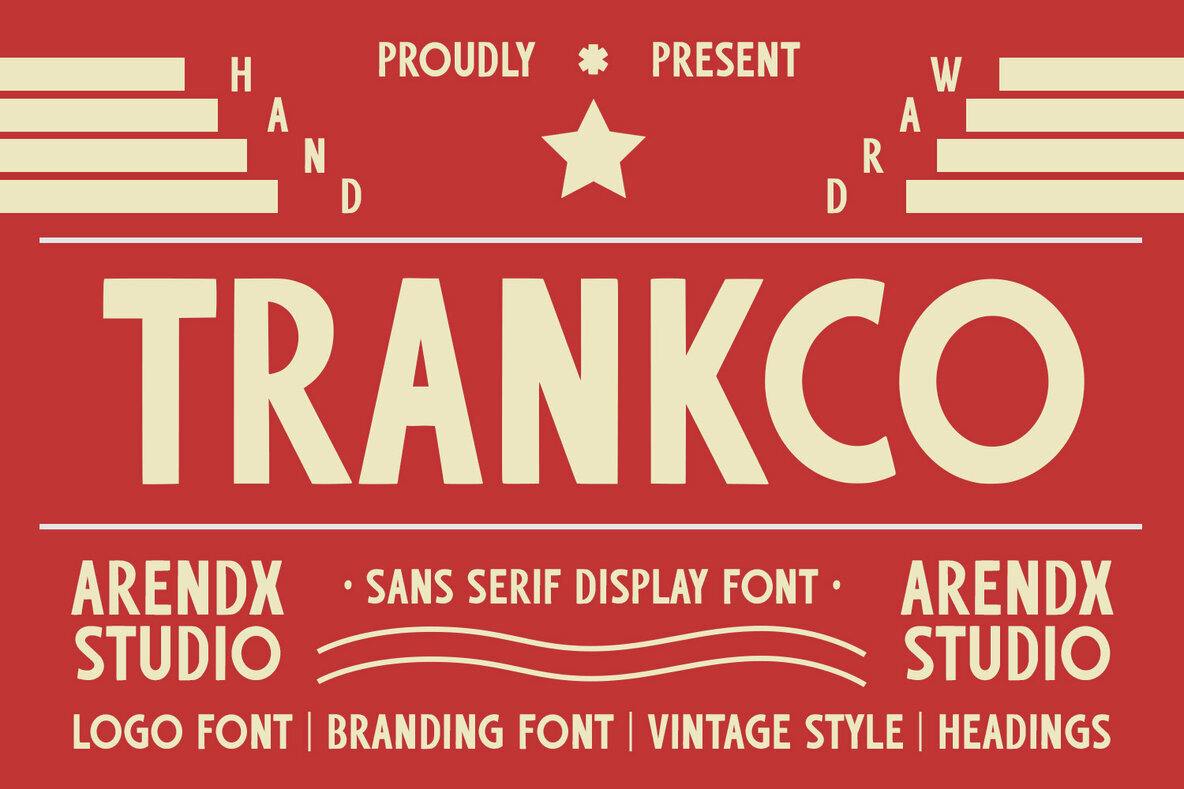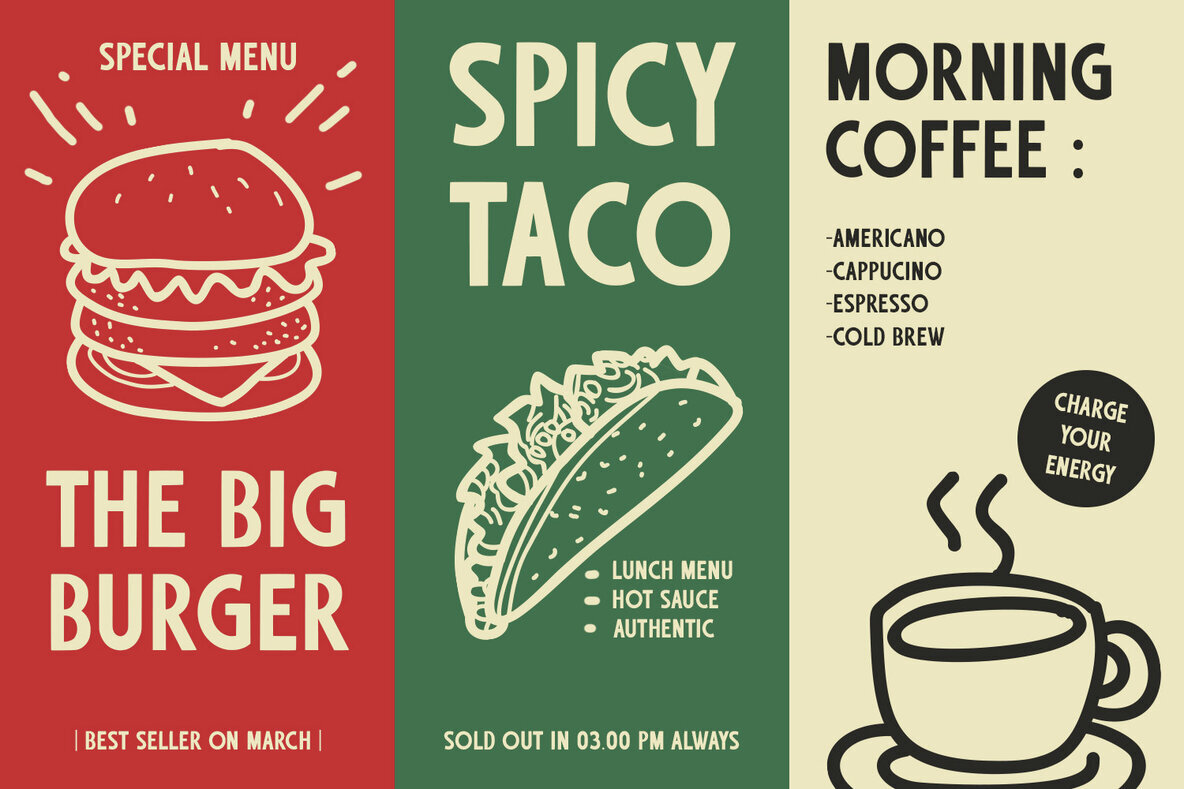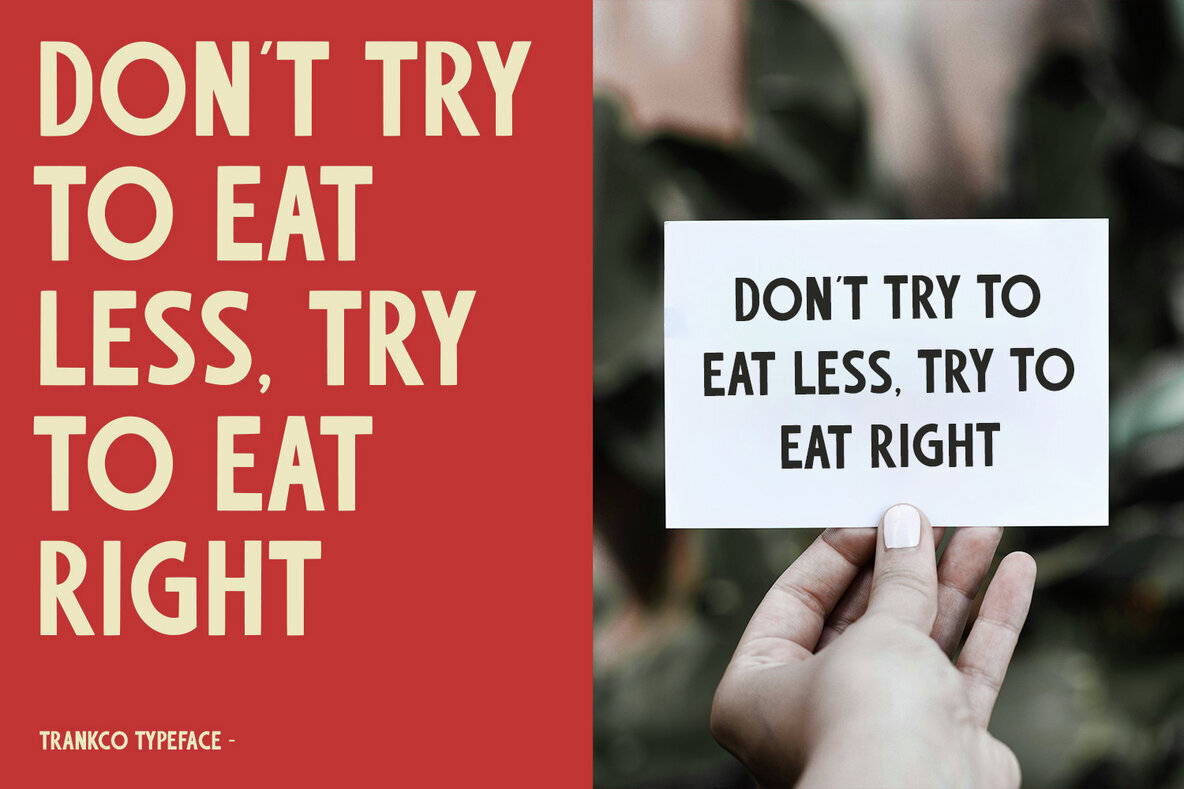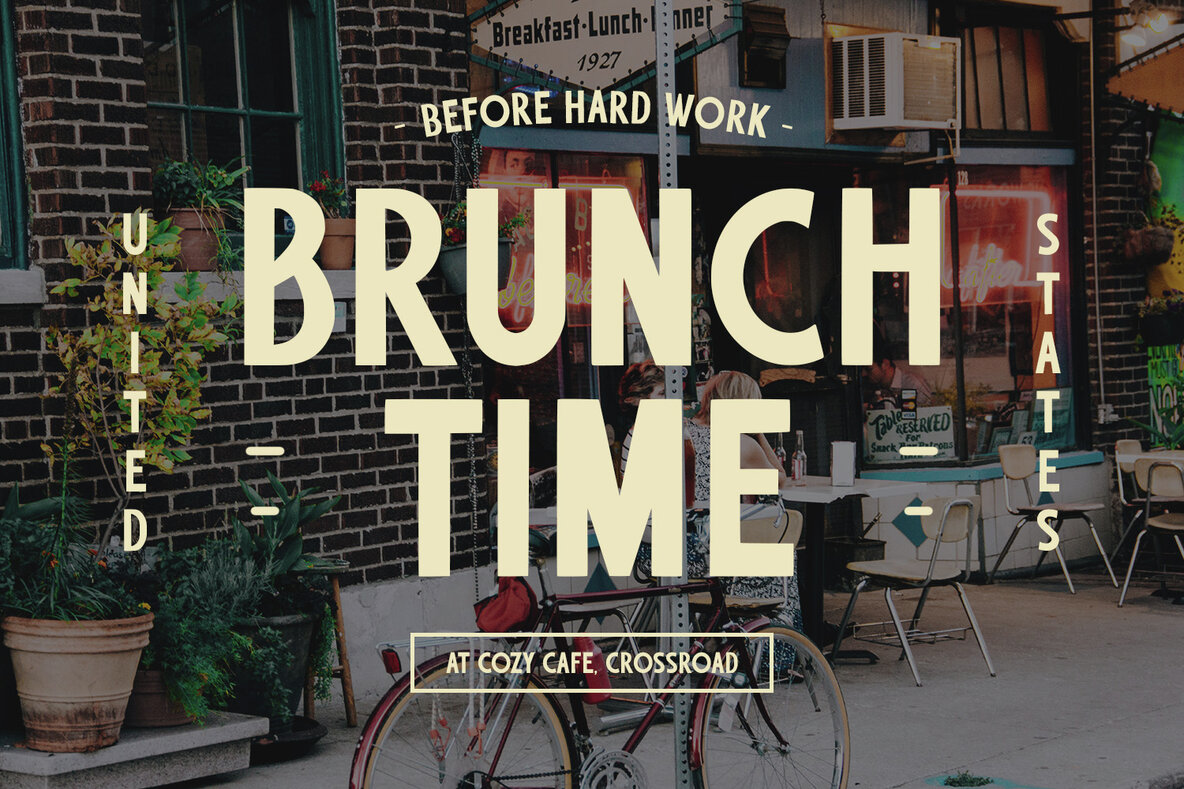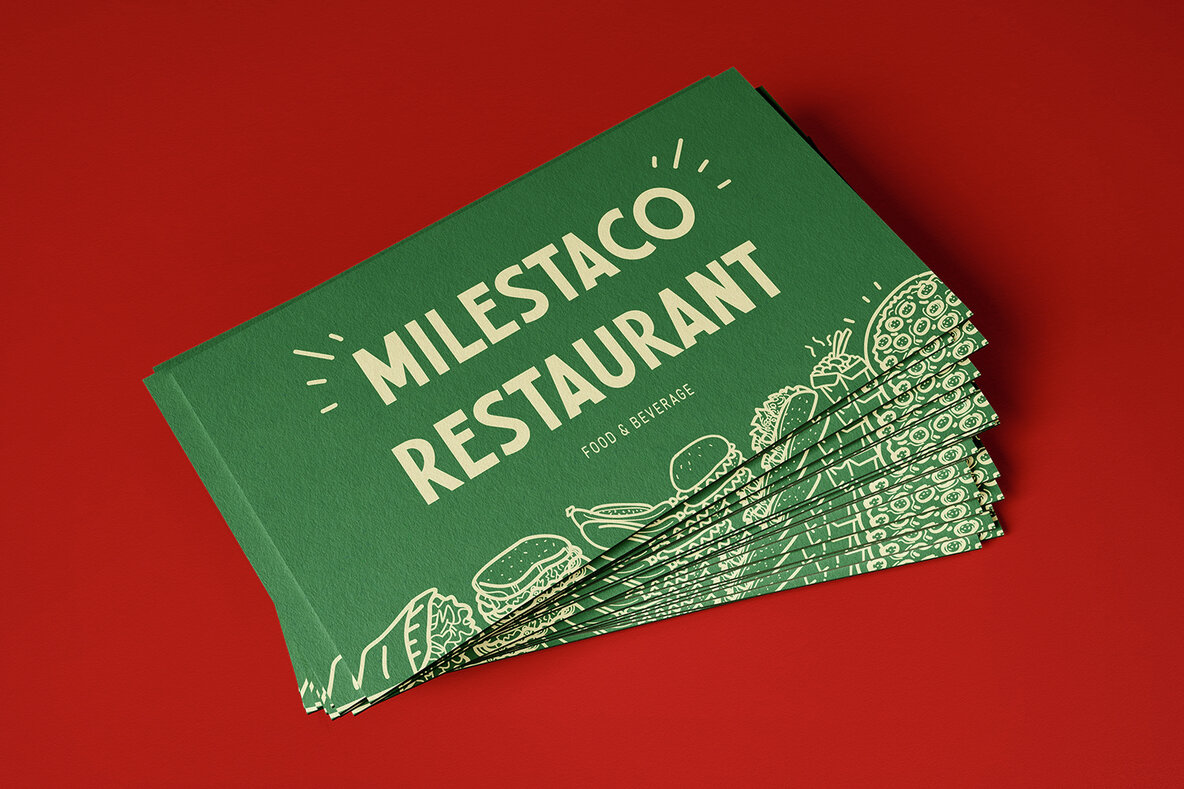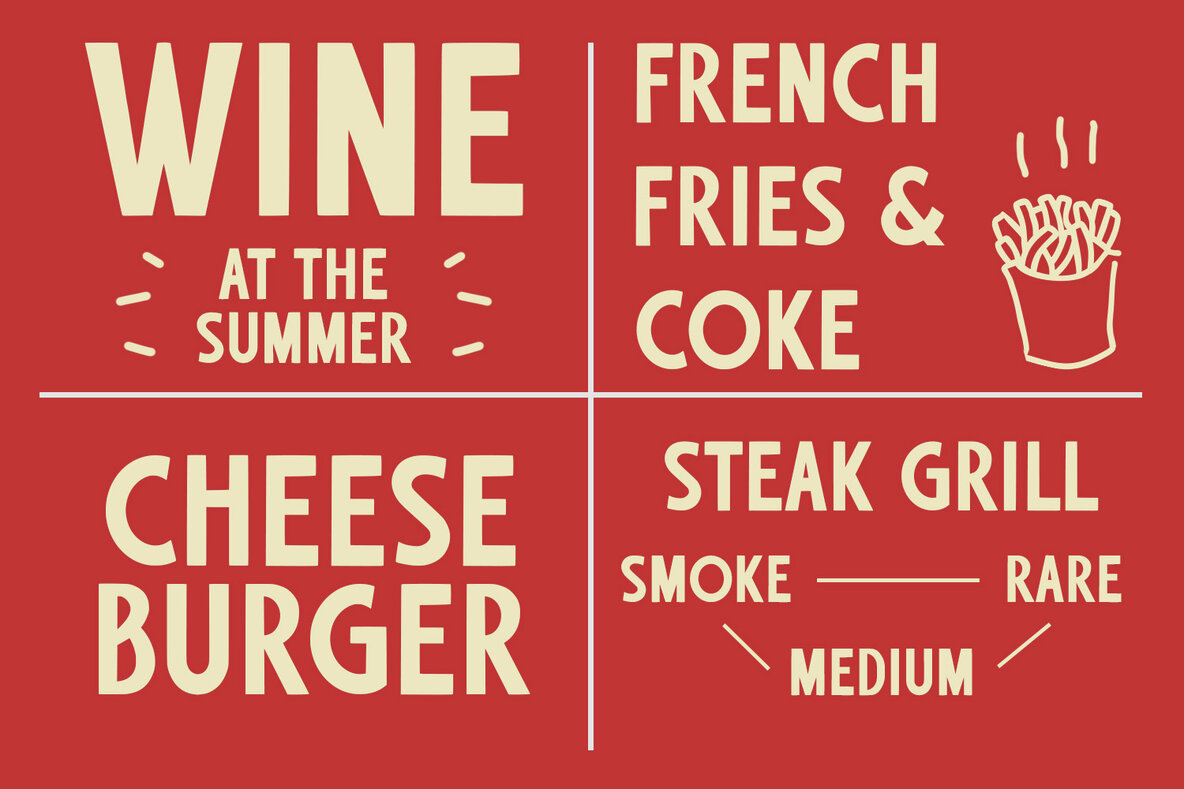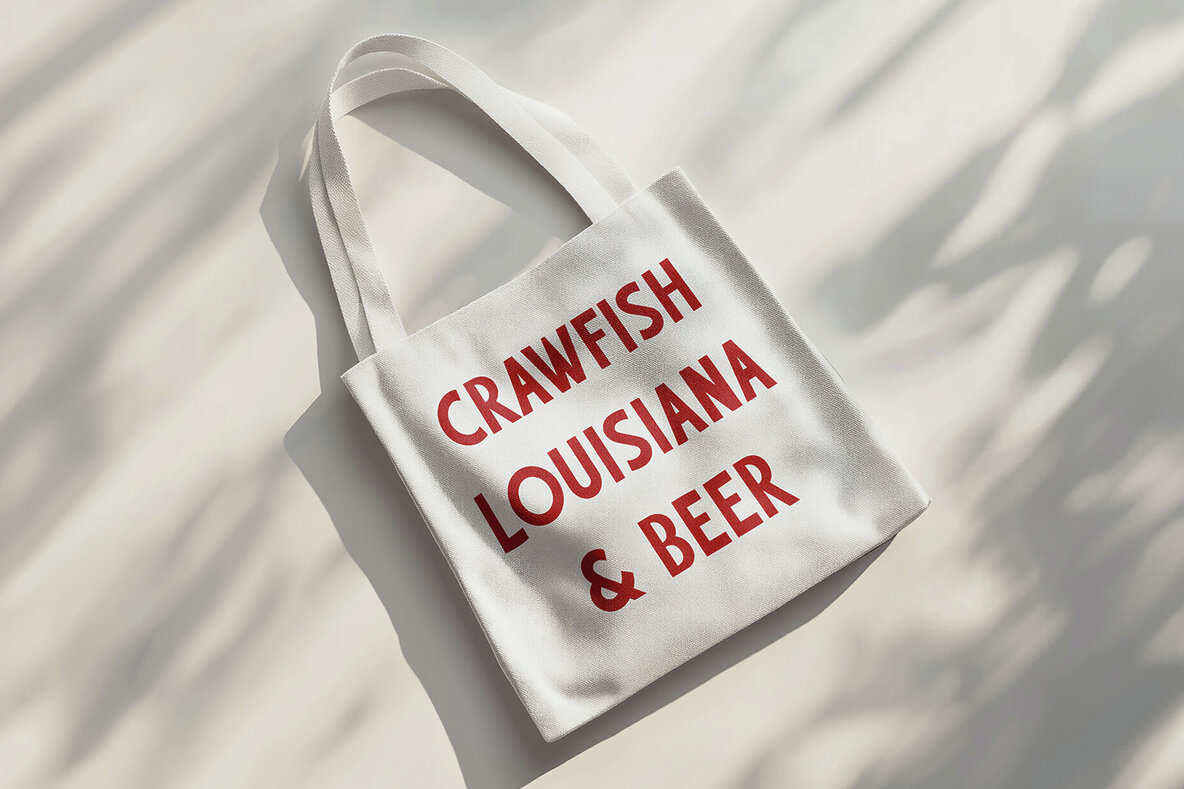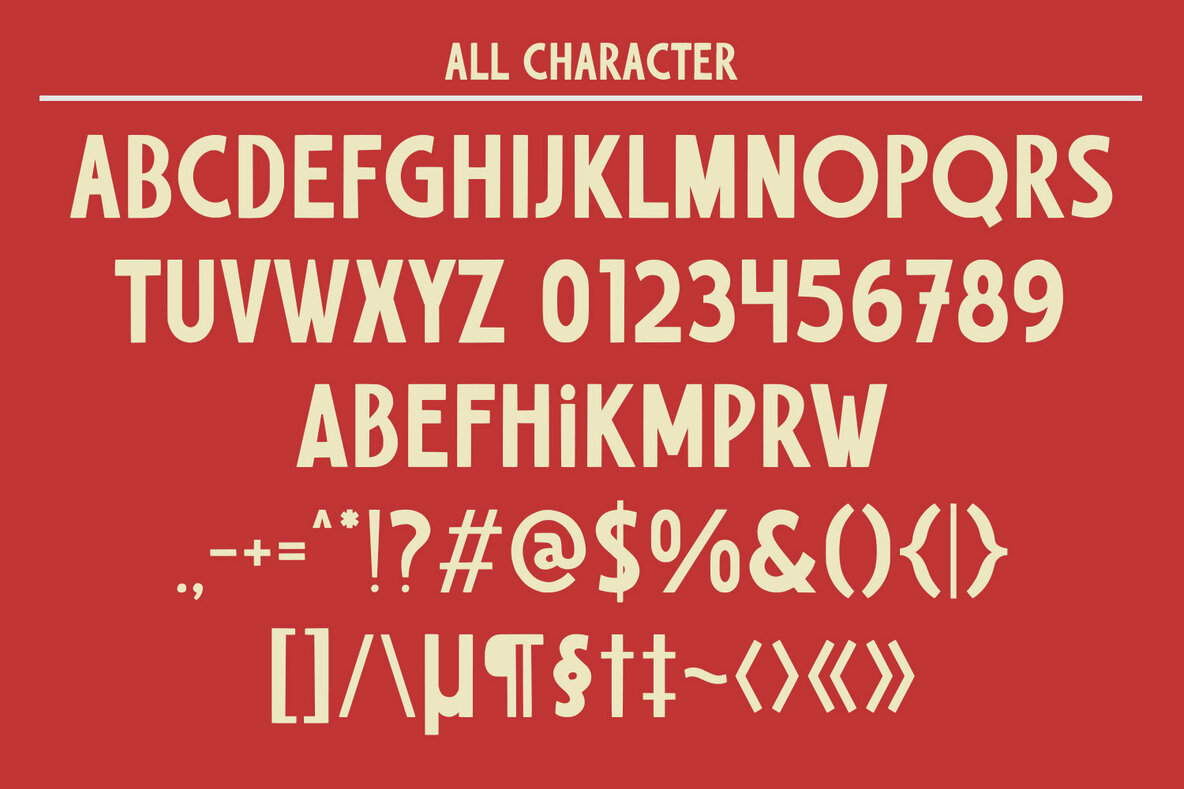
Trankco Font
Trankco
Trankco is a retro sans-serif hand-drawn font that channels the bold, no-nonsense typography of 1960s advertising and industrial signage, but with the gritty charm of a brush or marker. Imagine the raw energy of a mechanic’s hastily scrawled garage sign or a vintage diner’s hand-painted menu—Trankco captures that imperfect, utilitarian vibe with uneven strokes, subtle ink bleeds, and a touch of rebellious flair. With its chunky, geometric letterforms and deliberate wobbles, Trankco feels like it was dashed off in a hurry but designed to last. The font’s slightly skewed angles and rough edges give it an "I’ve been around the block" attitude, perfect for projects that need a punch of nostalgia with a DIY edge. Key Features: Perfect For: Features: